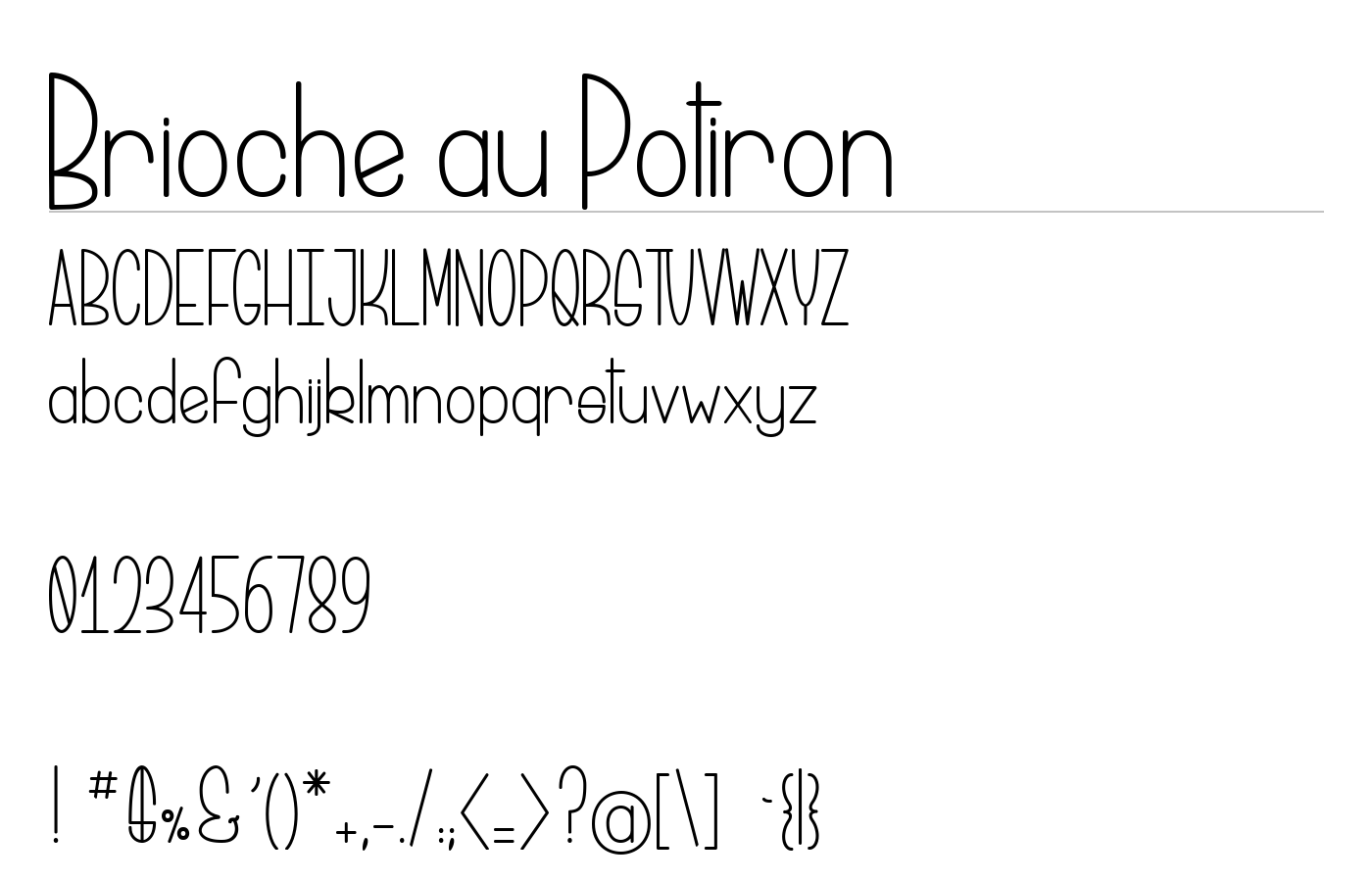
Brioche au Potiron is a delicate, narrow sans serif font characterized by its tall, slender letterforms and subtle playful quirks like the unique shapes of its lowercase letters. With a light stroke weight and minimal contrast, it offers an airy, whimsical feel that suits creative and casual designs, especially for headlines, invitations, and branding that seeks a friendly and modern personality with a touch of elegance. This font works well where a distinctive but readable style is desired, adding charm without overwhelming the layout.
Brioche au Potiron Font
About Brioche au Potiron Font